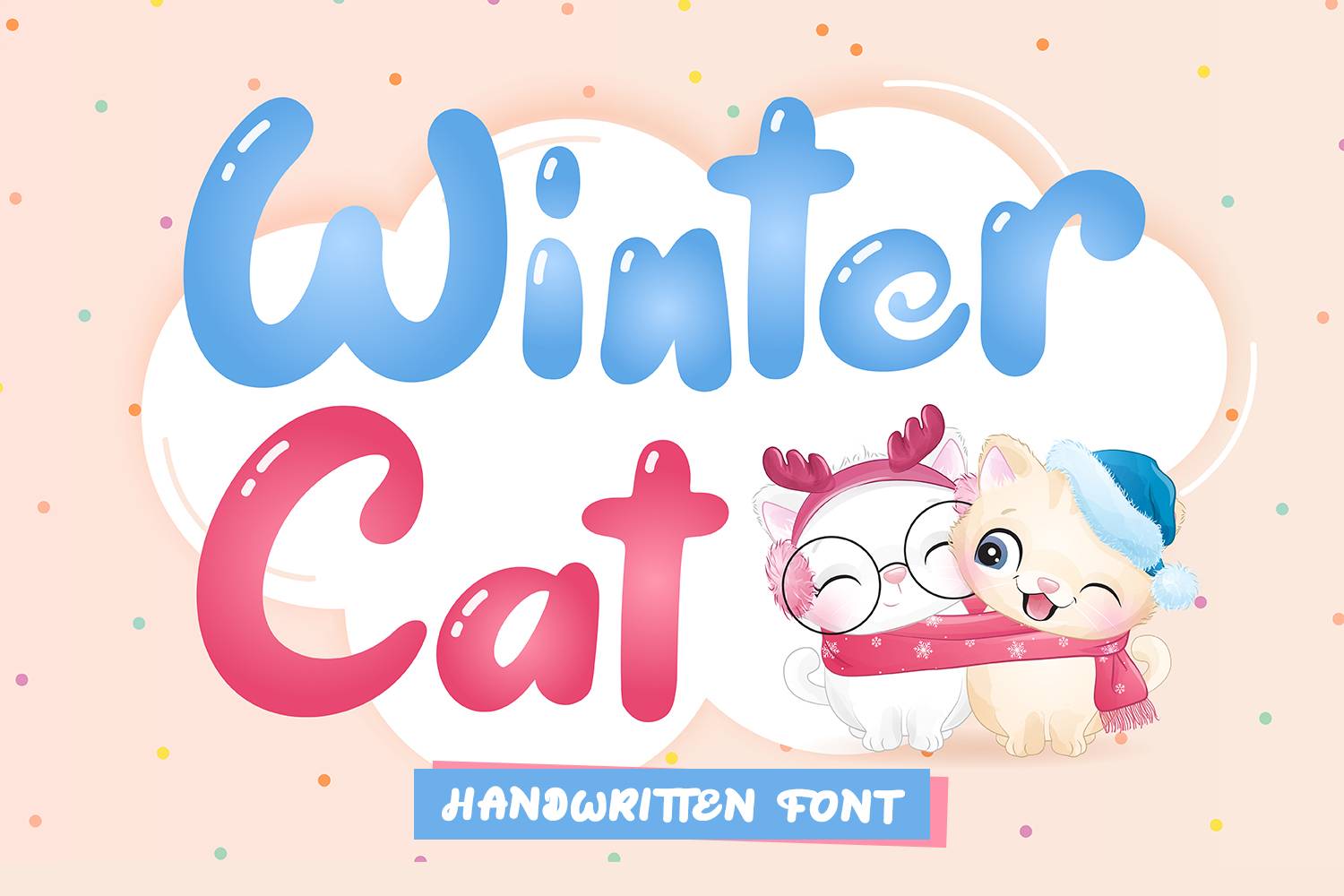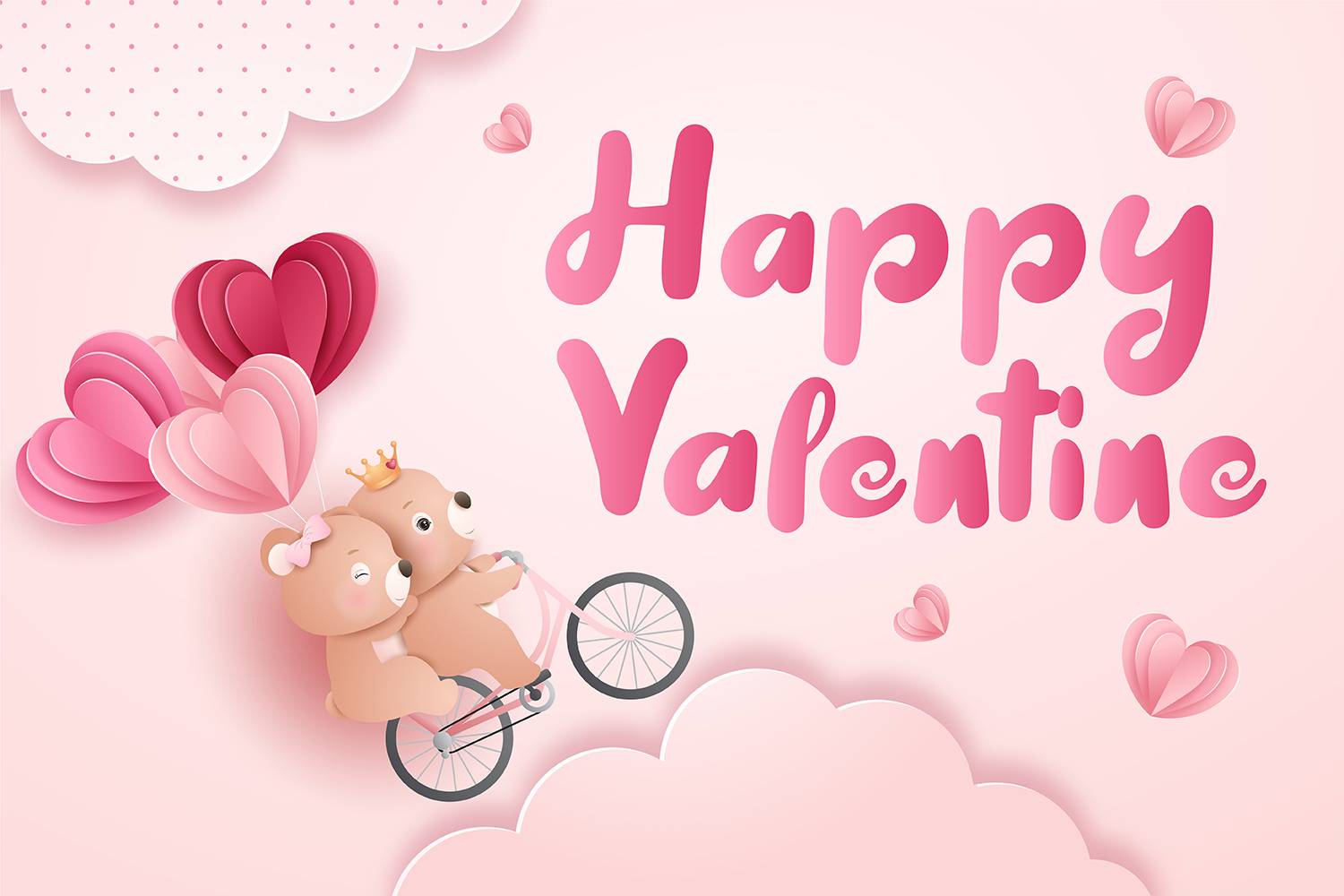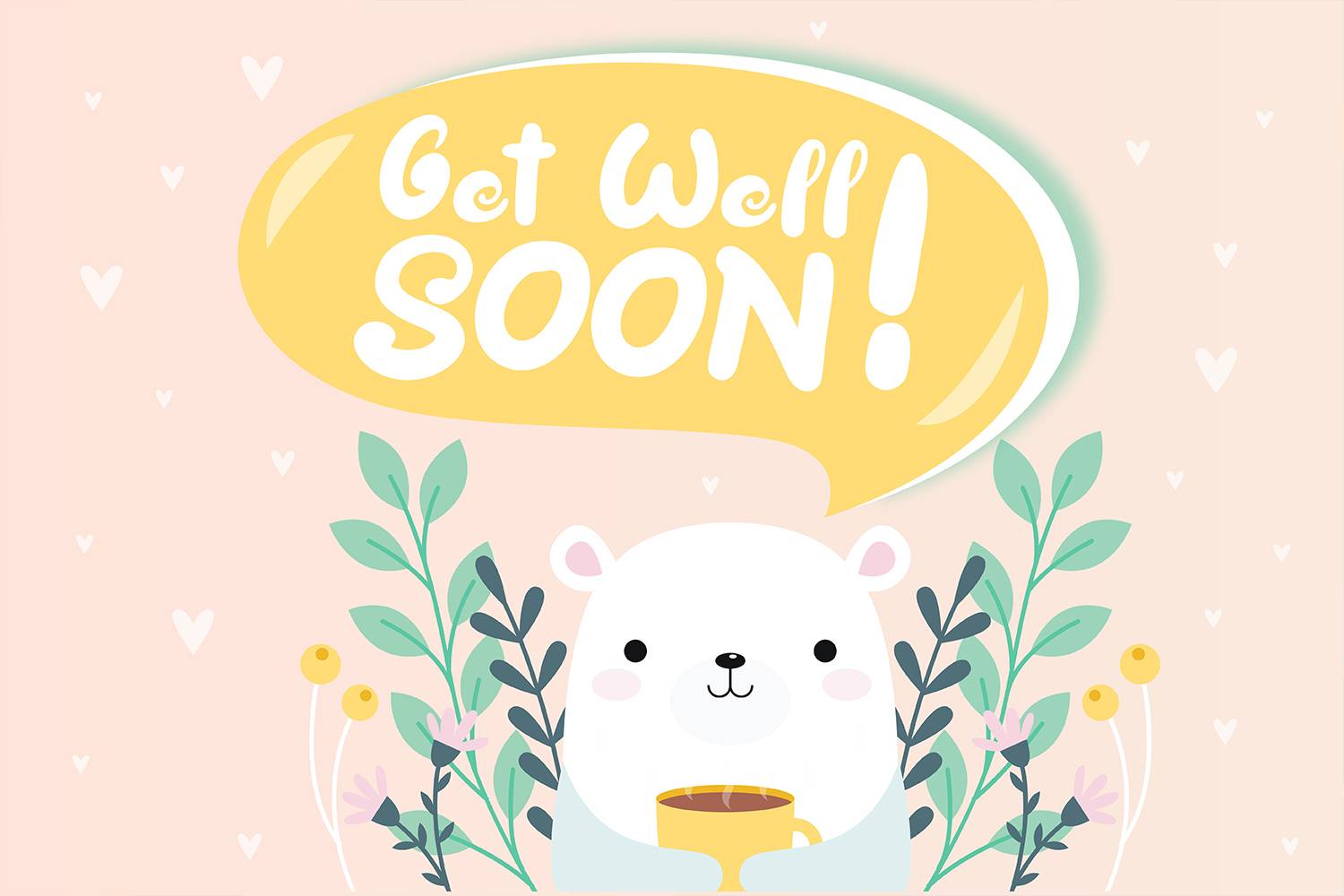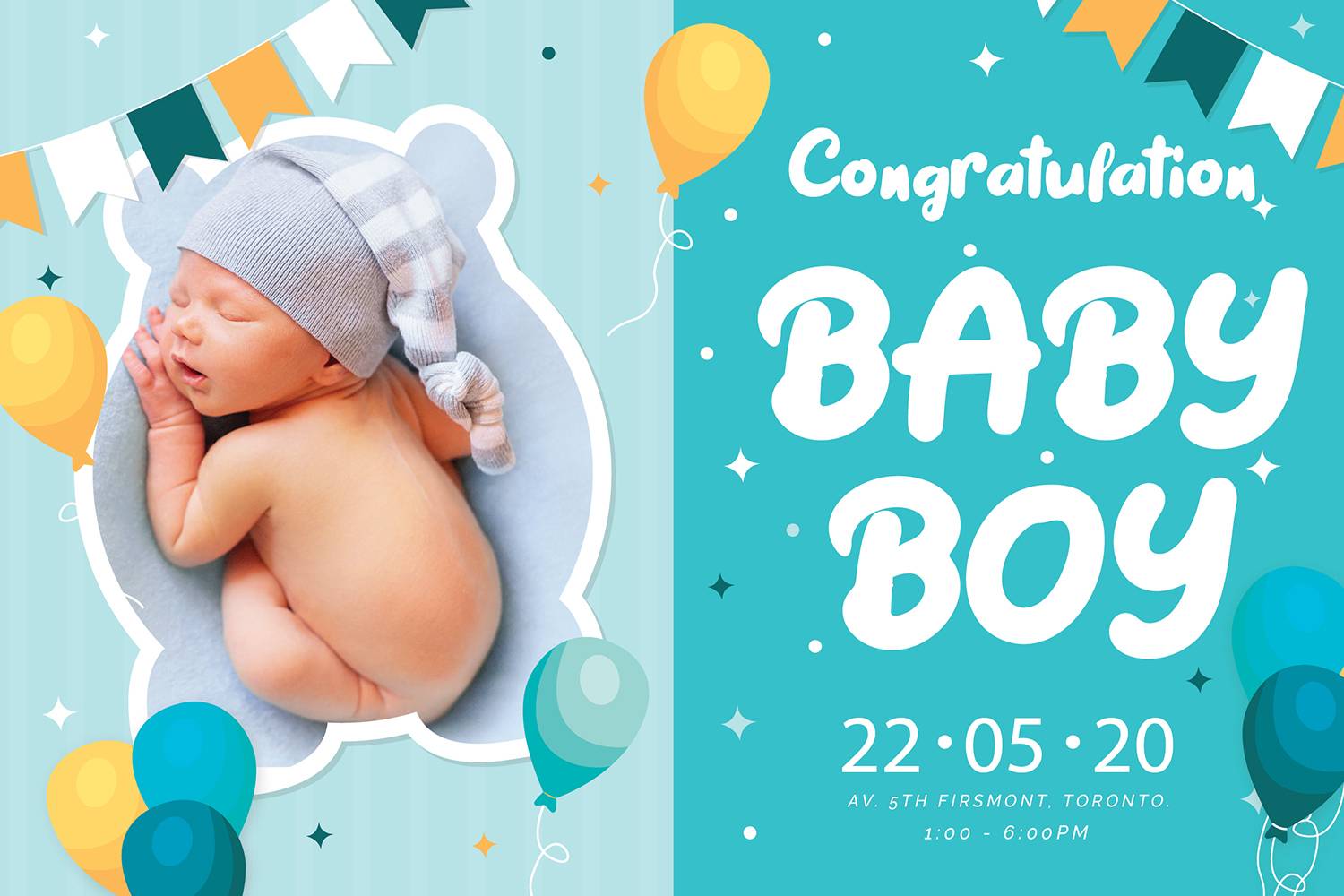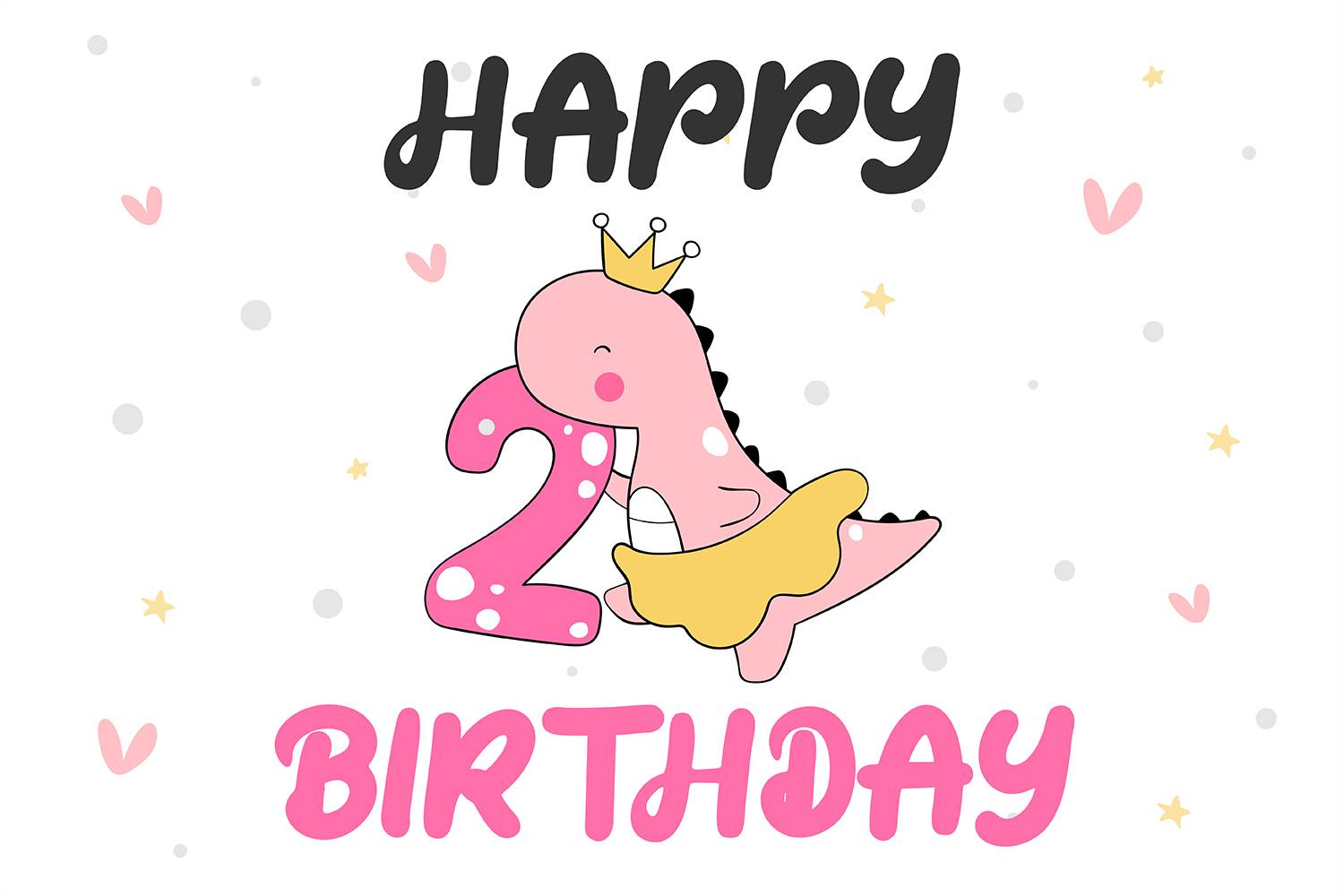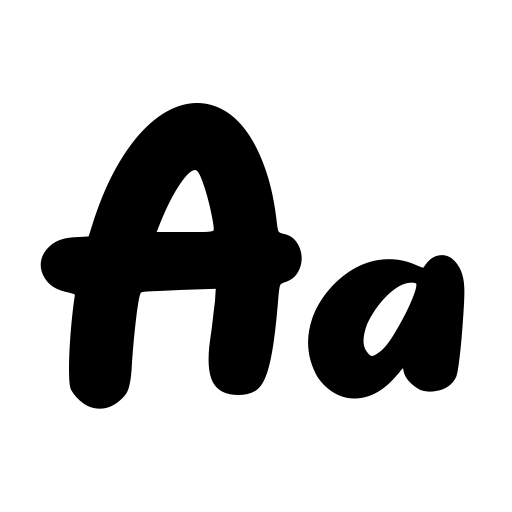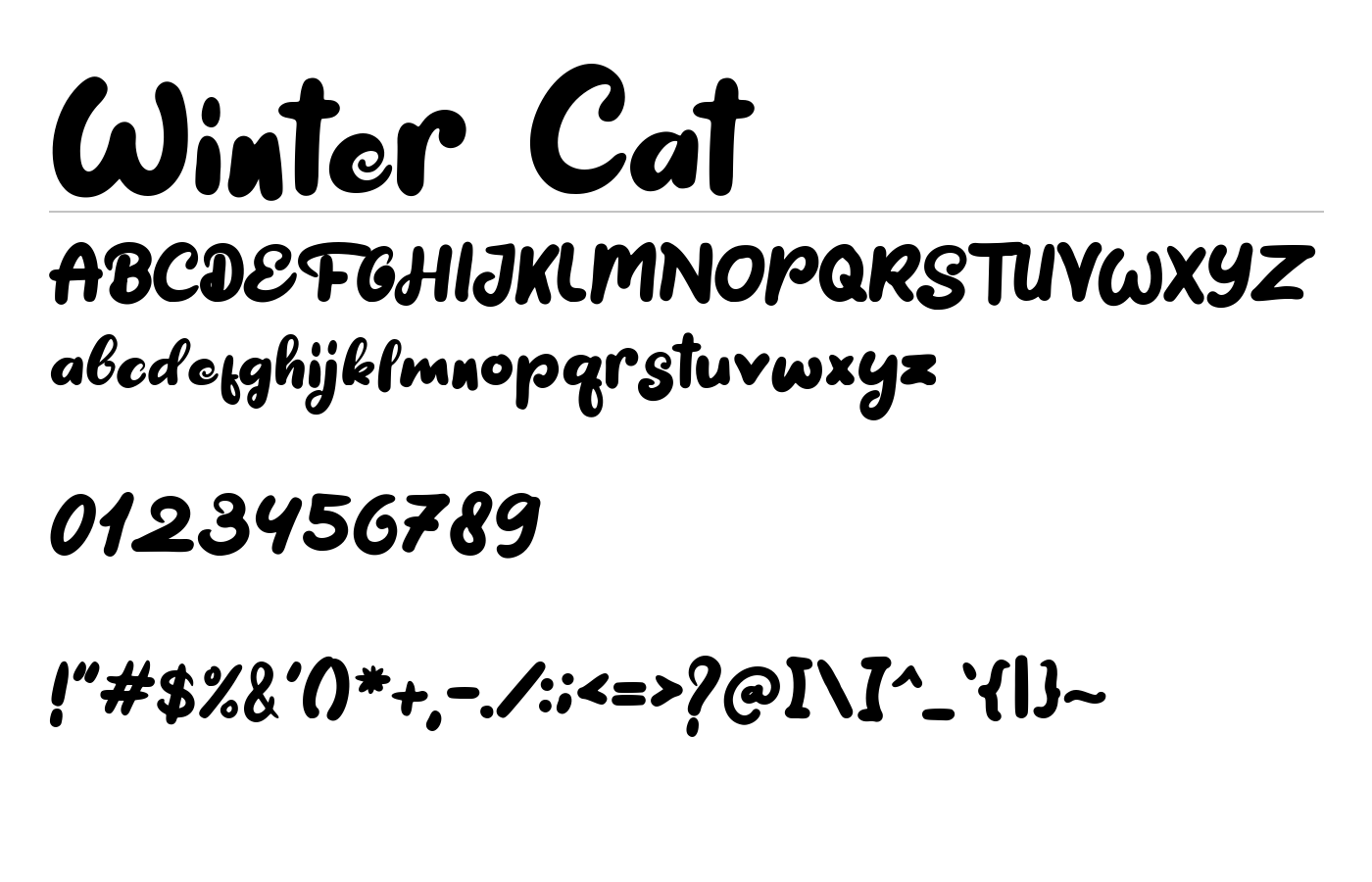
Winter Cat is a playful and bold handwritten script font with rounded, friendly letterforms and a casual, inviting feel. Its thick strokes and lively curves make it ideal for fun and creative designs, bringing warmth and personality to logos, packaging, and headlines. This font works best where a cheerful and approachable style is needed to capture attention and express a sense of joy.
Winter Cat Font
About Winter Cat Font
| Font family | Winter Cat Font |
| Designer | Nanda Hardiansyah | Naharstd |